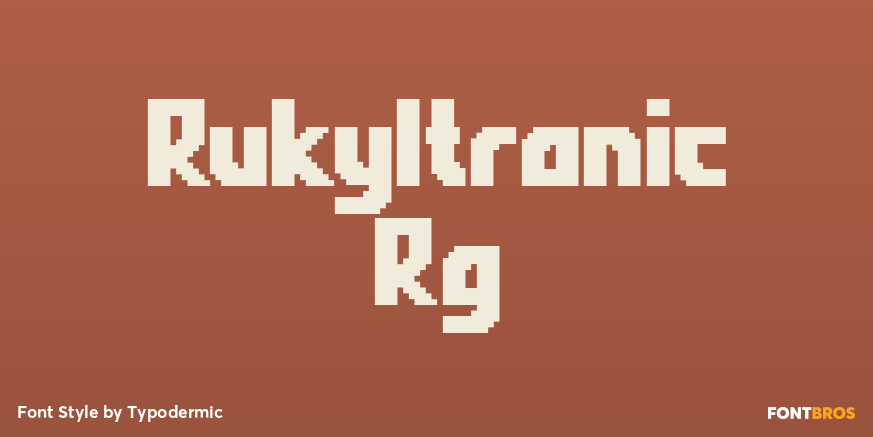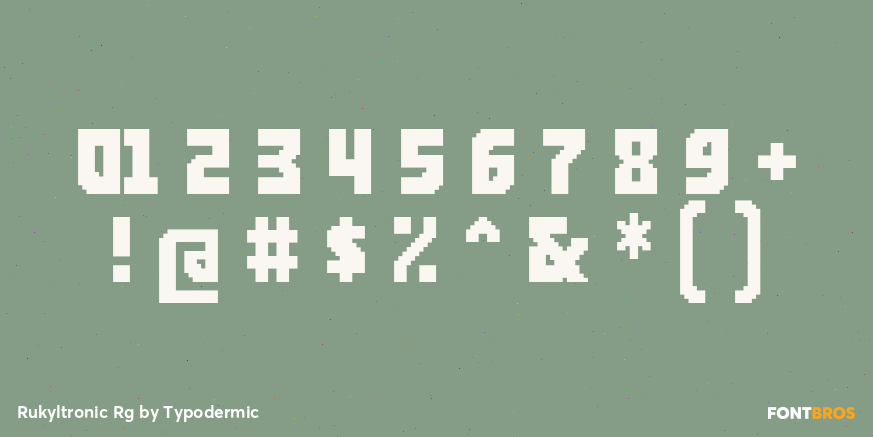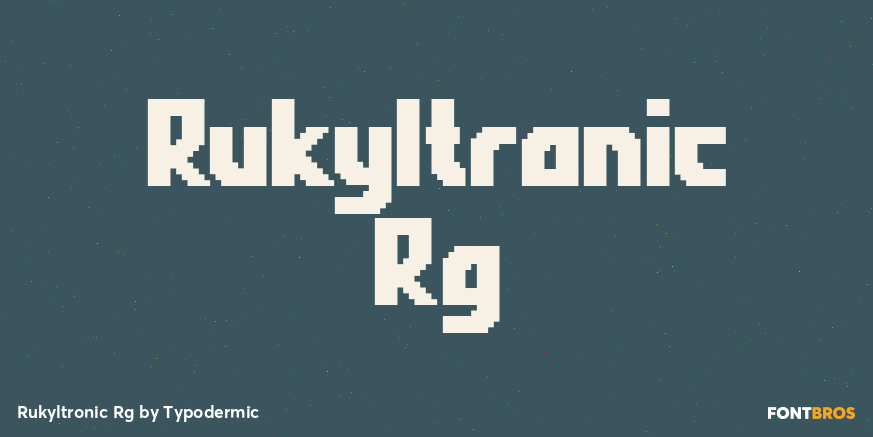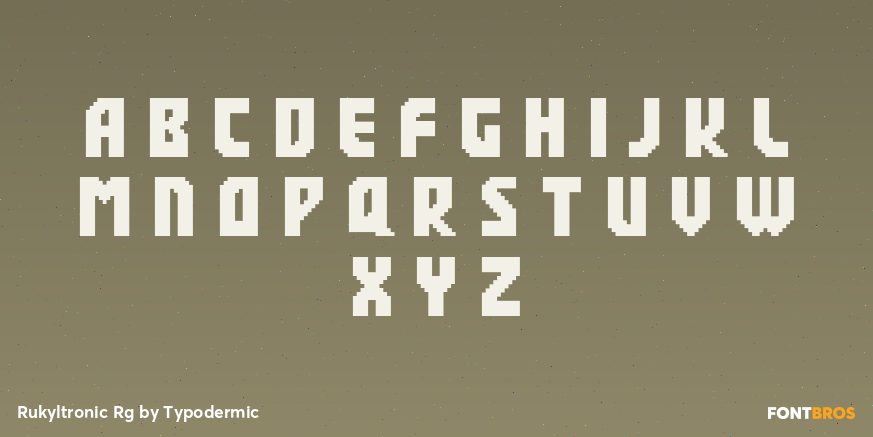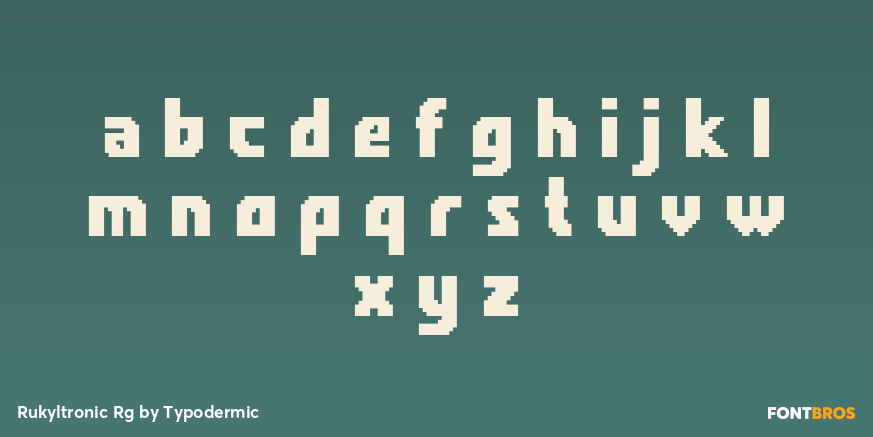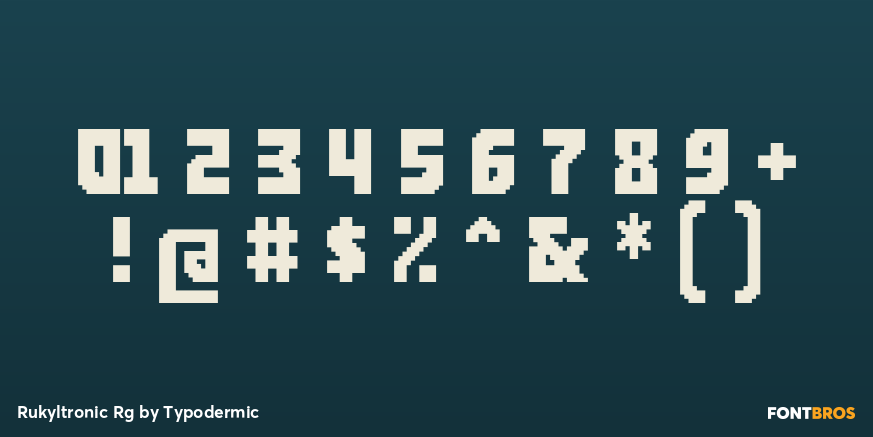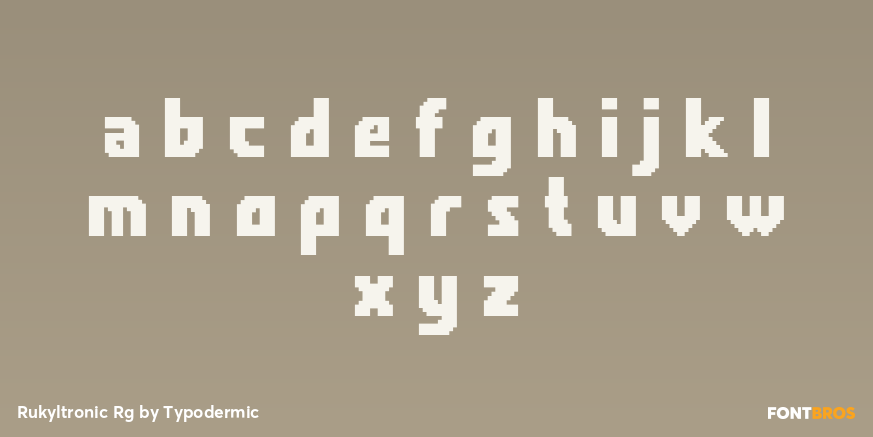
Rukyltronic Rg
Some pixel fonts begin with ordinary lettering and reduce it to a grid. Rukyltronic works the other way around. Its compact, squared forms were conceived inside the logic of low-resolution displays, with unusual stroke routes and proportions that already feel native to a grid before any surface treatment is applied.
That makes sports a surprisingly natural territory. Team names, jersey lettering, player-introduction graphics and tournament titles can use the same condensed proportions and unconventional stroke logic that give custom athletic lettering its identity. Circle and Star evoke classic electronic scoreboards, while Grid, Network, Mesh and Screen provide different internal structures without changing the underlying silhouette.
Those related treatments let a team or event maintain one lettering system across uniforms, arena displays, ribbon boards, playoff graphics and promotional campaigns. Home, away and alternate versions can change surface treatment while keeping the same basic wordmark.
Large LED environments extend the idea beyond sports. Arena video walls, transparent storefront displays, media façades and trade-show screens are themselves built from visible grids of light. Set large enough for the internal cells to register, Rukyltronic can make a team name, event title or installation graphic feel native to the display rather than merely placed on it.
Its British home-computer ancestry still provides a legitimate historical branch. Retrocomputing exhibitions, homebrew software, FPGA recreations and coding events can use Rukyltronic when a generic square-pixel alphabet feels too ordinary.
Rukyltronic works best when the grid itself matters: a team name on a scoreboard, an arena identity moving between uniforms and LED displays, a media installation built from visible pixels or a project revisiting early home-computer graphics. The letterforms stay recognizable while the surface changes around them.